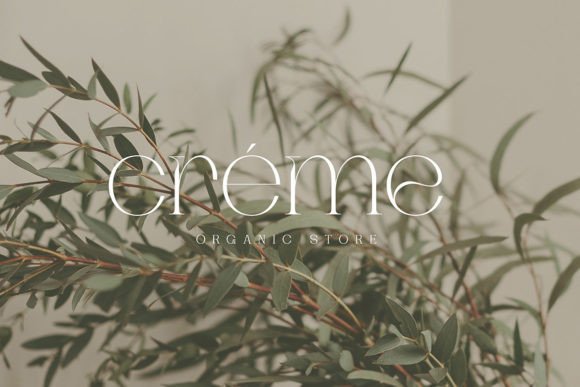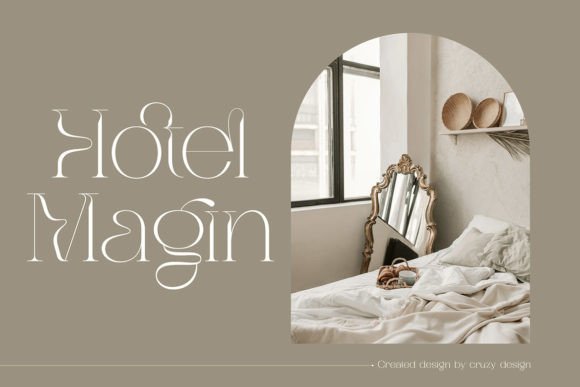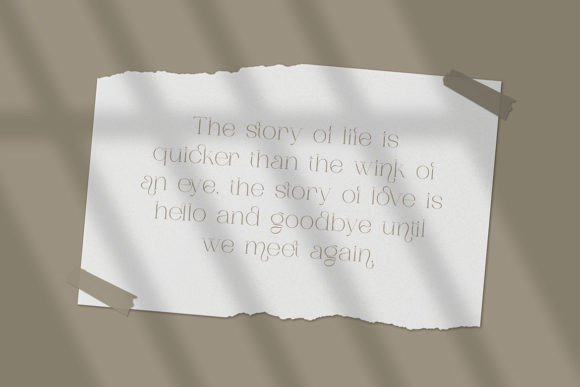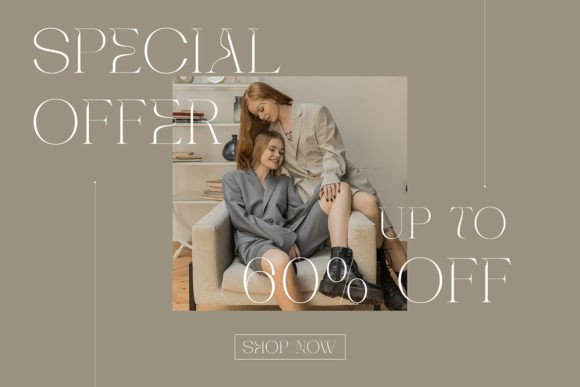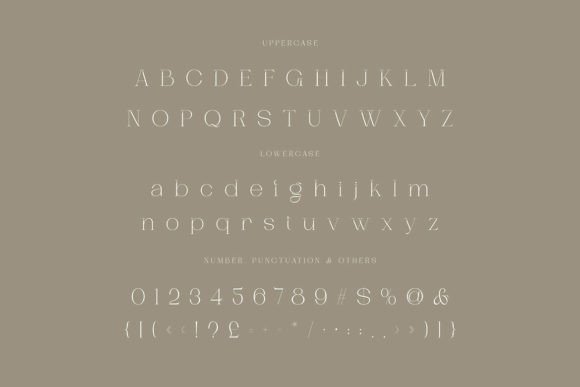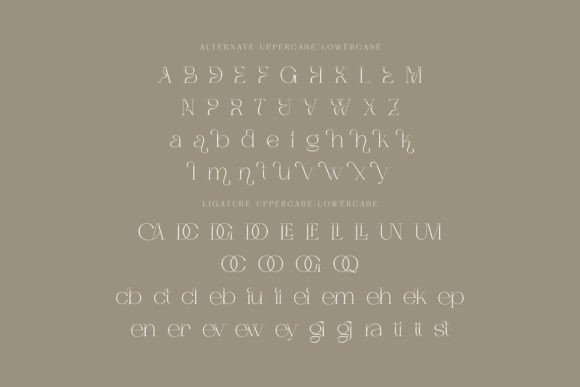
Introduction to Dagstam Font
Have you ever stared at a blank page, waiting for the perfect design to emerge? It’s a moment we’ve all experienced as creatives. We’re on the hunt for that one special element that will elevate our project from good to great. For designers, finding the right font can be a game-changer. That’s where the Dagstam Font comes in – a stylish and sophisticated serif font that’s about to become your new best friend.
With its sharp edges and classic look, the Dagstam Font is perfect for modern designs that demand a touch of sophistication. Its subtle rounded details give it a contemporary twist, making it ideal for posters, logos, and headlines. Whether you’re working on a high-end project or a creative passion project, this font is sure to make a statement. And the best part? It’s available for free download, making it an invaluable resource for designers.
Key Features of Dagstam Font
• Includes a range of weights and styles to suit various design needs
• Designed for versatility, making it perfect for logos, typography, and more
Honest Review: Dagstam Font
As a designer, I’ve come across many design resources that claim to be high-quality, but rarely live up to the hype. However, the Dagstam Font has pleasantly surprised me with its unique features and versatility.
• High-quality design with a unique style
• Perfect for designers who want a clean and modern look
• Limited character set, which may not be suitable for extended text-based projects
• No support for bold or italic styles
Overall, I’m impressed with the Dagstam Font’s design and versatility. While it may have some limitations, it’s a great choice for designers who want a high-quality, unique font for their creative projects.
Getting the Most Out of Dagstam Font